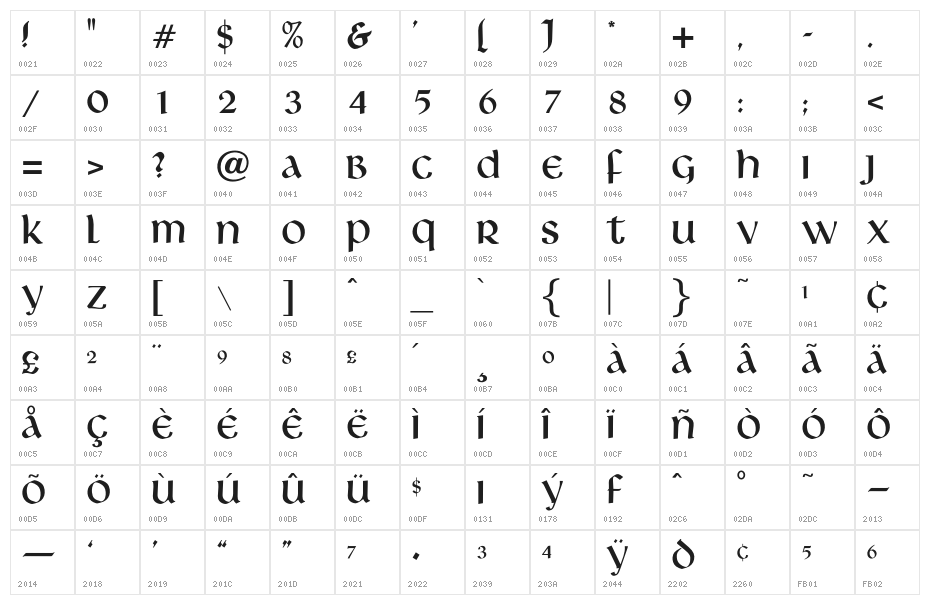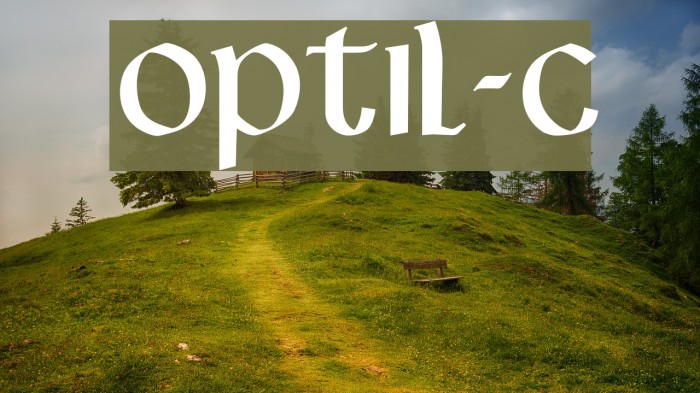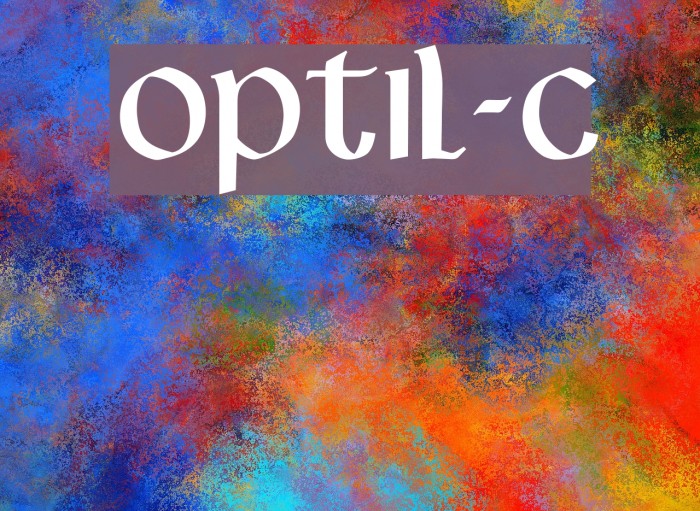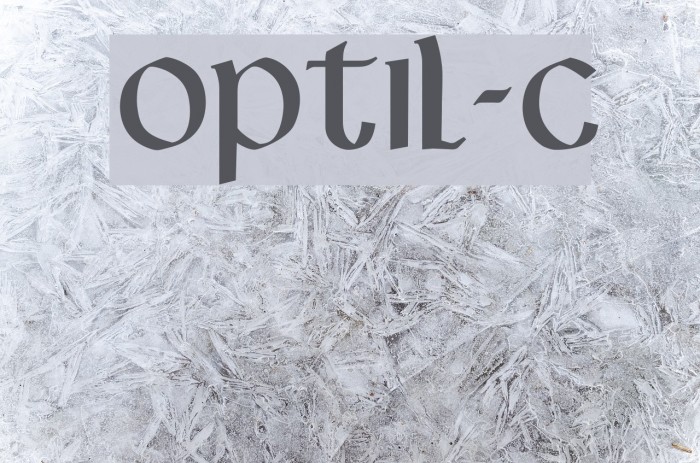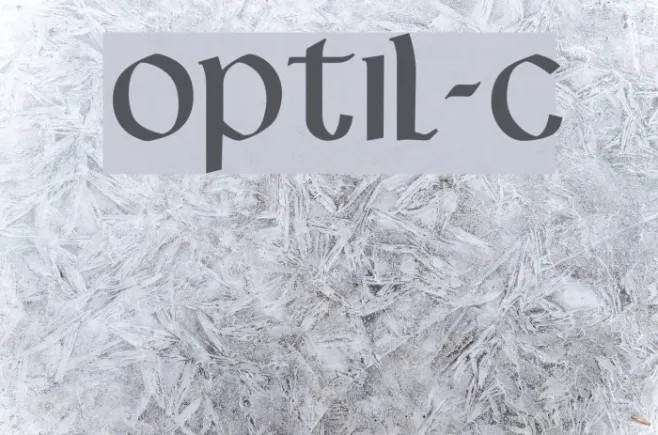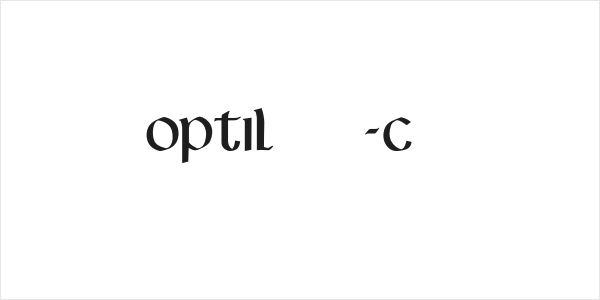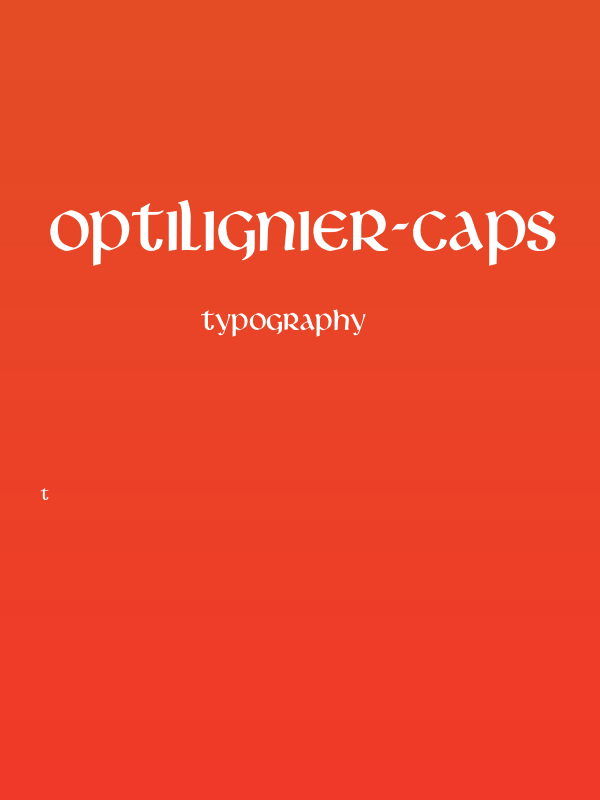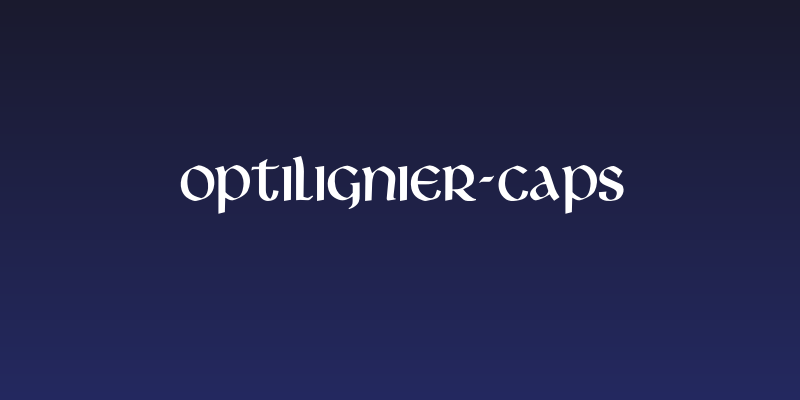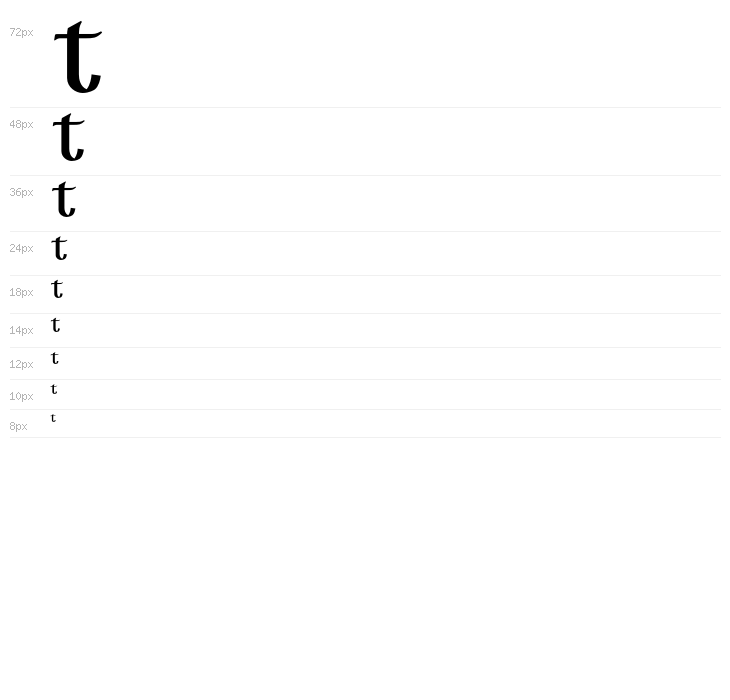
OPTILignier-Caps Font
OPTILignier-Caps Description
This font features a unique blend of modern and classic elements, characterized by its bold and dynamic strokes. The letters exhibit a slight slant, adding a sense of movement and fluidity. The uppercase and lowercase letters maintain a consistent style, with sharp angles and smooth curves that create a harmonious balance. The numerals are distinct and easily readable, while the special characters are designed to complement the overall aesthetic. This font's artistic flair makes it suitable for creative and expressive projects.
| Proposed Projects | Ideal for branding, posters, artistic projects, and any design requiring a bold, expressive typeface. |